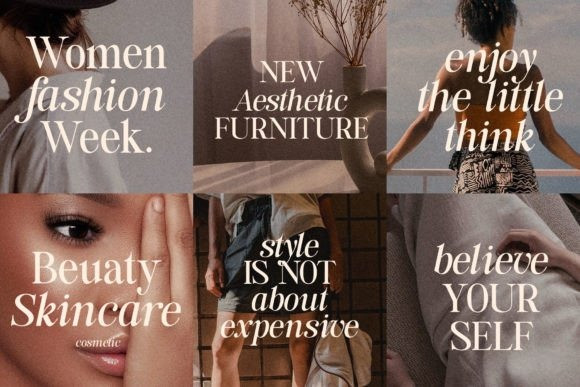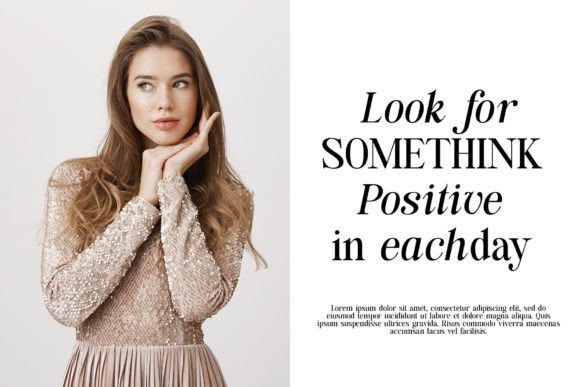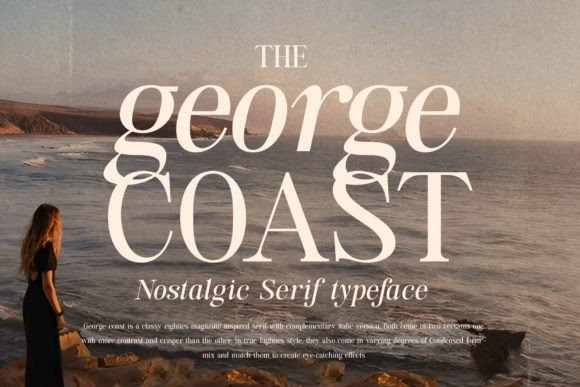
George Coast Font
George Coast Font is an elegant serif font, that features a very delicate and classy look. Not too thin and not too thick, balanced and varied, GeorgeCoast was designed to enhance the beauty of your projects.